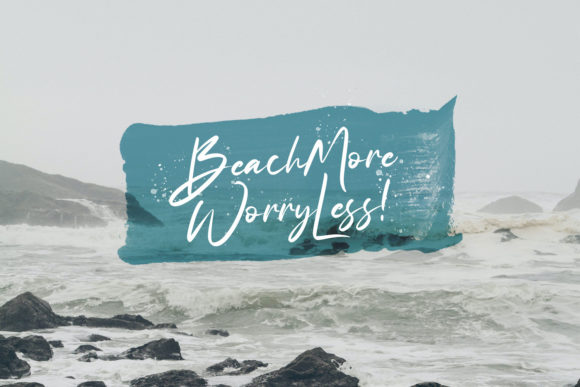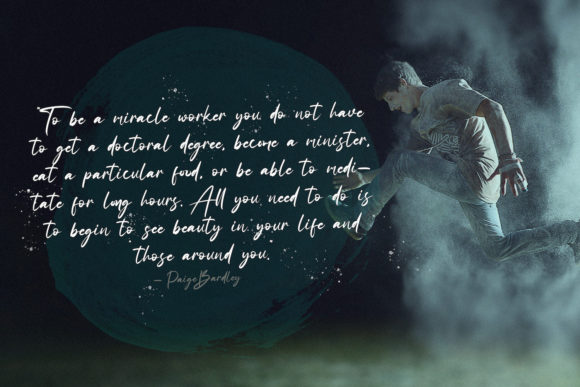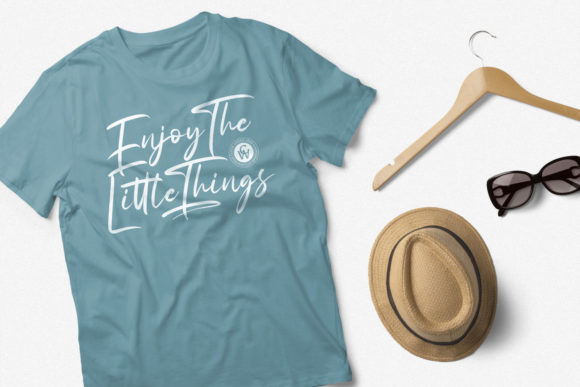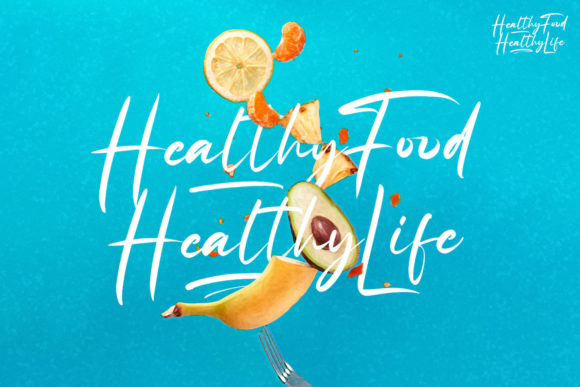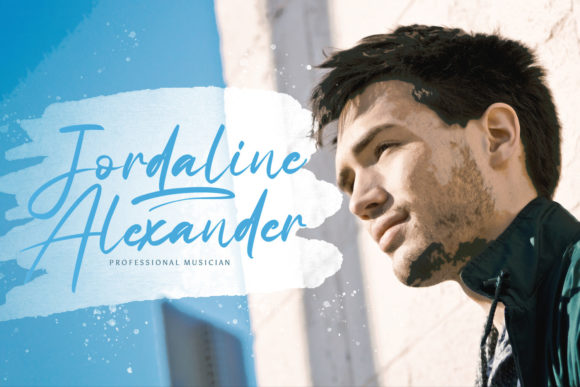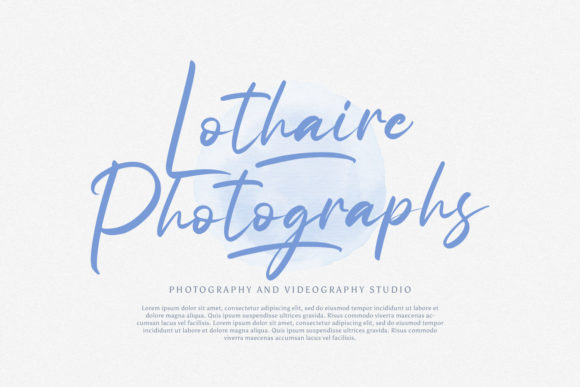
Fany Alleya Font: Elevate Your Designs with Delicate Elegance
In the world of typography, a font can make or break a design. It’s the perfect blend of style, elegance, and readability that can elevate a project from ordinary to extraordinary. If you’re a designer or crafter looking for a font that embodies these qualities, look no further than Fany Alleya. This beautiful, handwritten font is a versatile and adaptable addition to any creative project, offering a delicate and well-balanced aesthetic that’s sure to impress.
The Beauty of Fany Alleya
Fany Alleya is a delicate, well-balanced, and adaptable handwritten font that boasts beautiful characters, making it an ideal match for a wide range of designs. Its elegant strokes and refined features bring a touch of sophistication to any project, whether it’s a logo, branding materials, packaging, or digital content. With Fany Alleya, you can add a level of refinement and poise to your designs that will set them apart from the rest.
Key Features of Fany Alleya Font
- Delicate and Elegant: Fany Alleya’s slender lines and gentle curves create a soft, romantic feel that’s perfect for designs that require a touch of whimsy and charm.
- Well-Balanced: The font’s carefully crafted characters ensure a smooth flow and excellent readability, making it suitable for both headings and body text.
- Adaptable: Fany Alleya’s versatility allows it to be used across various design applications, from digital media to print materials.
- Handwritten: The font’s handwritten nature adds a personal touch to designs, making them more relatable and engaging.
Why Choose Fany Alleya?
With so many fonts available, why choose Fany Alleya? Here are just a few reasons why this font stands out:
- Unique Character: Fany Alleya’s distinctive style ensures your designs will stand out from the crowd.
- Wide Range of Applications: From fashion and beauty to lifestyle and technology, Fany Alleya’s adaptability makes it suitable for various industries and design applications.
- Ease of Use: The font’s excellent readability and smooth flow make it easy to use, even for large blocks of text.
Tips for Using Fany Alleya Effectively
To get the most out of Fany Alleya, here are some tips for using the font effectively:
- Pair with Bold Fonts: Combine Fany Alleya with bold, contrasting fonts to create visual interest and hierarchy.
- Experiment with Colors: Fany Alleya’s delicate nature makes it an excellent choice for pastel colors, metallic tones, and soft neutrals.
- Use for Headings and Titles: The font’s elegant style makes it perfect for headings, titles, and captions.
In conclusion, Fany Alleya is a beautiful, adaptable, and elegant handwritten font that can elevate your designs to new heights. Its delicate and well-balanced aesthetic, combined with its versatility and excellent readability, make it an ideal choice for designers and crafters looking to add a touch of sophistication to their projects. With Fany Alleya, you can create stunning designs that capture attention, convey your message, and leave a lasting impression.